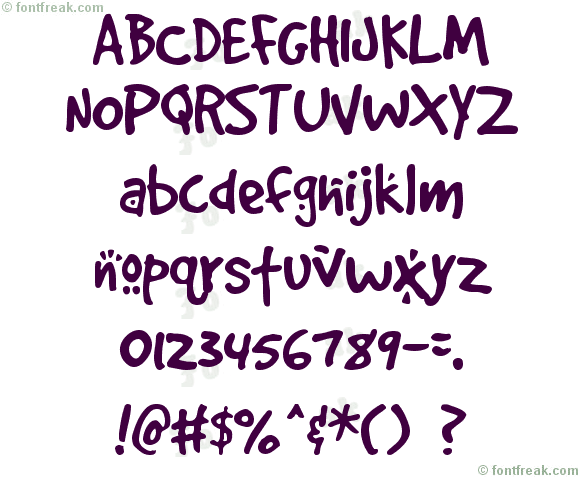
GoodDog Plain
About GoodDog Plain
GoodDog Plain by Fonthead Design is a delightful display font that captures a playful yet straightforward aesthetic. Characterized by its handwritten style, this font offers a unique blend of charm and clarity, making it a versatile choice for various design projects. The strokes are relatively consistent in weight, providing a nice balance that enhances readability while still maintaining a casual flair. Its slightly rounded edges and organic forms contribute to a friendly vibe, making it particularly appealing for designs that aim to evoke warmth and approachability.
This font is ideal for a variety of specific use cases. It works wonderfully for children's book covers, where the playful nature of the font can engage young readers. Restaurant menus can benefit from GoodDog Plain’s inviting look, making dishes appear more appealing. Additionally, it’s perfect for crafting personalized stationery or greeting cards, where a touch of whimsy can enhance the recipient's experience. Small business owners will find it effective for branding materials, especially for services aimed at families or creative audiences. Content creators can also leverage this font for social media graphics that need a fun and relatable touch.
Targeting graphic designers, small business owners, and content creators, GoodDog Plain is a font that stands out with its effortless style. The choice of a freeware license makes it accessible for anyone looking to add a unique touch to their projects without a financial burden. The GoodDog Plain font free download offers an opportunity to infuse designs with personality and creativity. Its charming yet straightforward character makes it a fantastic addition to any typography toolkit, ensuring that your projects remain engaging and visually appealing.